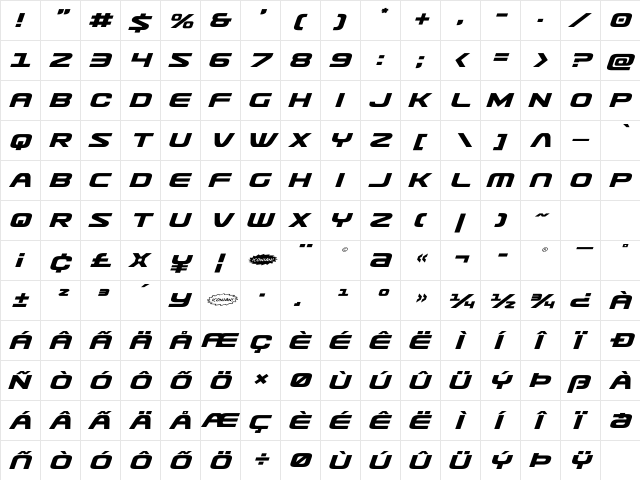
Usuzi Expanded Italic Expanded Italic
Design Context for Usuzi Expanded Italic Typeface
Usuzi Expanded Italic offers clean, dependable letterforms without strong stylistic allegiance, making it a practical choice for designers who need flexibility. Its italic angle brings a sense of urgency and motion to the letterforms.
Pro Tip: Try Usuzi Expanded Italic for annotation and caption copy alongside an upright companion — the contrast in angle creates a dynamic but ordered typographic system.